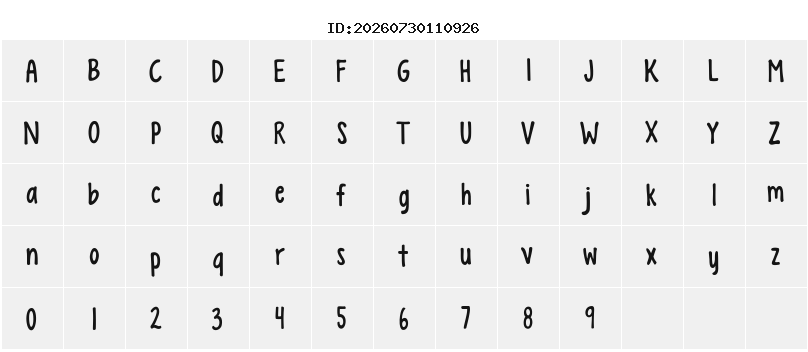
KG Empire of Dirt Preview
• Font Name: KG Empire of Dirt
• Designer: Kimberly Geswein
About KG Empire of Dirt.ttf
KG Empire of Dirt.ttf is a modern, elegant sans-serif font designed for ultimate readability and visual harmony. Perfect for branding, headlines, web design, and print materials.